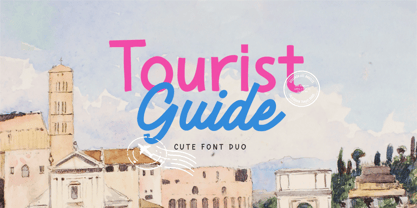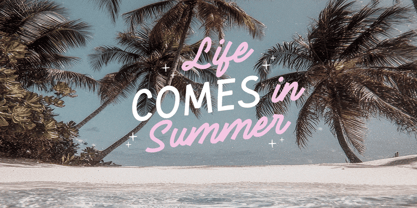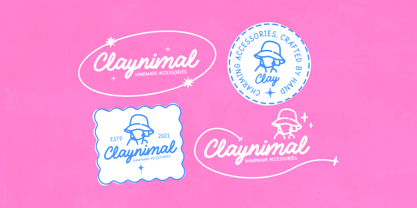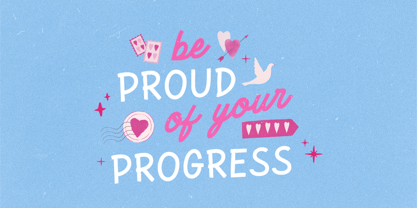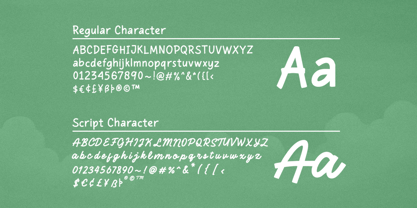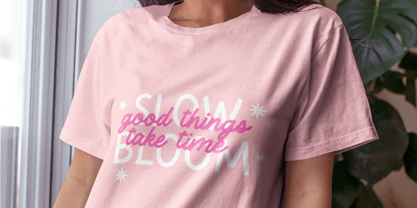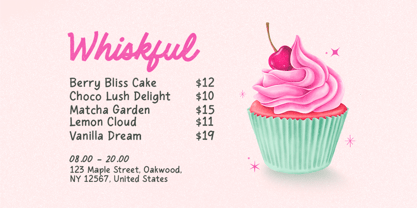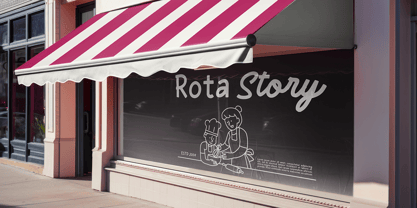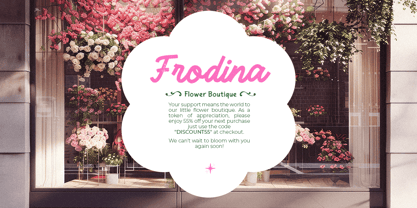
Tourist Guide
The Tourist Guide Font Family was designed by Dzikrul Aulia, Liwa Shidqy and published by Bale Type. Tourist Guide contains 2 styles.
Tourist Guide is a cute holiday font duo that have monoline sans and script that made to look like a hand lettering style. You can use this font for any purpose such as poster, book cover, logo, branding and quote as well. This font is suitable for project that have cute branding or holiday and summer vibes. Tourist Guide also support multi language.